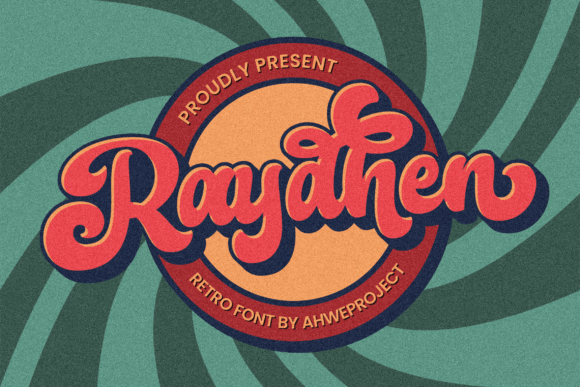
Embark on a typographic adventure with Raydhen, the captivating display font, designed to set your designs ablaze with retro charm. This playful script font, meticulously crafted by ahweproject, is a visual treat that effortlessly transports you back to the golden era of signage and vintage aesthetics.
Ignite your creativity and let Raydhen's enchanting glyphs and swashes dance across your designs, adding a touch of nostalgia and uniqueness to your projects. Effortlessly accessible through PUA encoding, these intricate elements are at your fingertips, ready to elevate your posters, stickers, apparel, and social media posts to new heights of visual appeal.
Picture the impact of Raydhen's charismatic characters gracing your vintage-inspired posters, adding a touch of whimsy to your stickers, lending a retro vibe to your apparel, or captivating your audience on social media. Raydhen's versatility knows no bounds, making it the perfect companion for a wide range of creative endeavors.
Immerse yourself in Raydhen's enchanting world, where nostalgia meets modernity, and let your designs take center stage. With its undeniable charm and versatility, Raydhen is the key to unlocking a world of creative possibilities. Unleash your inner artist and let Raydhen's magic transform your designs into timeless masterpieces.